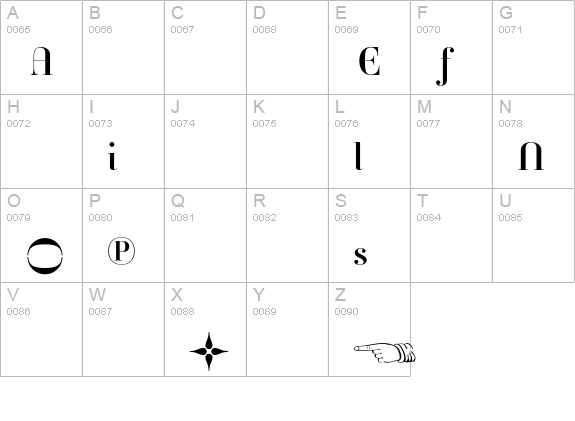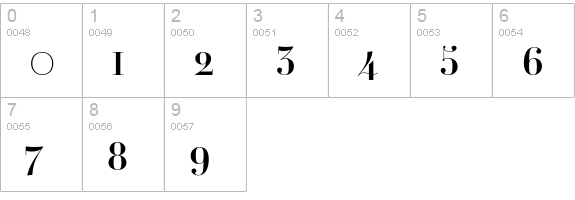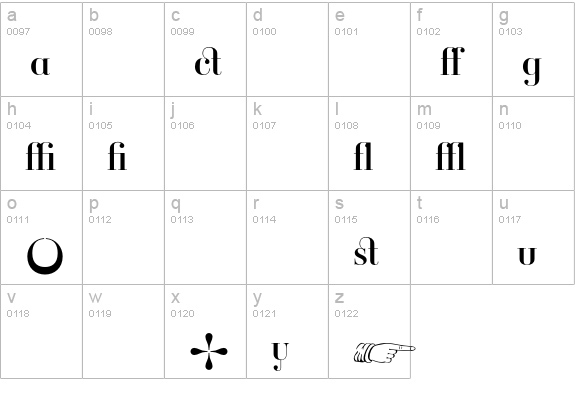
Ambroise Alternates Regular is the standard, neutral variant in the Ambroise typeface family \xE2\x80\x94 well suited to general body text, paragraphs, and standard typographic work.
Ambroise Alternates Regular is a versatile and elegant font that exudes sophistication and modernity. With its clean lines and distinctive letterforms, this typeface is perfect for a wide range of design projects, from branding to editorial design. The alternate characters add a unique flair to your typography, making your text stand out and capture attention. The best part? Ambroise Alternates Regular is available for free download at FontsMarket.com. Whether you're a designer looking to add a touch of class to your work or a blogger wanting to elevate your website's visual appeal, this font is a must-have in your collection. Don't miss out on the opportunity to enhance your designs with this beautiful and timeless typeface. Download Ambroise Alternates Regular today and start creating stunning visuals that leave a lasting impression.